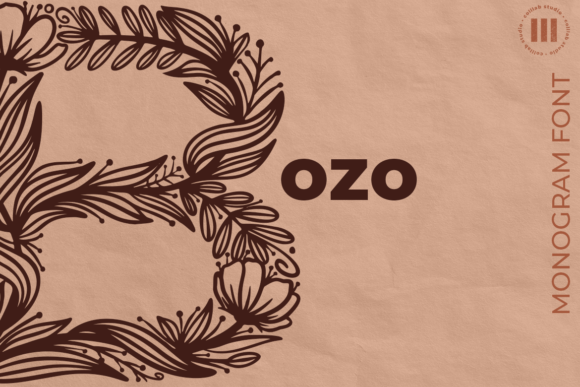
Welcome to the world of Bozo, a font family that oozes creativity and uniqueness, designed to transform your designs into captivating masterpieces.
Bozo's authentic and enchanting aura is guaranteed to leave an indelible mark on your audience. Its distinctive decorative style adds a touch of whimsy and charm to any project, making it the perfect choice for a variety of creative endeavors.
With Bozo, you can unlock a realm of endless possibilities, whether you're crafting elegant wedding invitations that exude romance, creating eye-catching social media posts that demand attention, or designing adorable greeting cards that warm hearts. Its versatility knows no bounds.
Unleash your imagination and let Bozo guide you on a journey of creative expression. Embrace its unique characteristics and discover a world of visual delight.
Immerse yourself in a font family that ignites your creativity and propels your designs to new heights. Bozo awaits you, ready to transform your vision into reality.